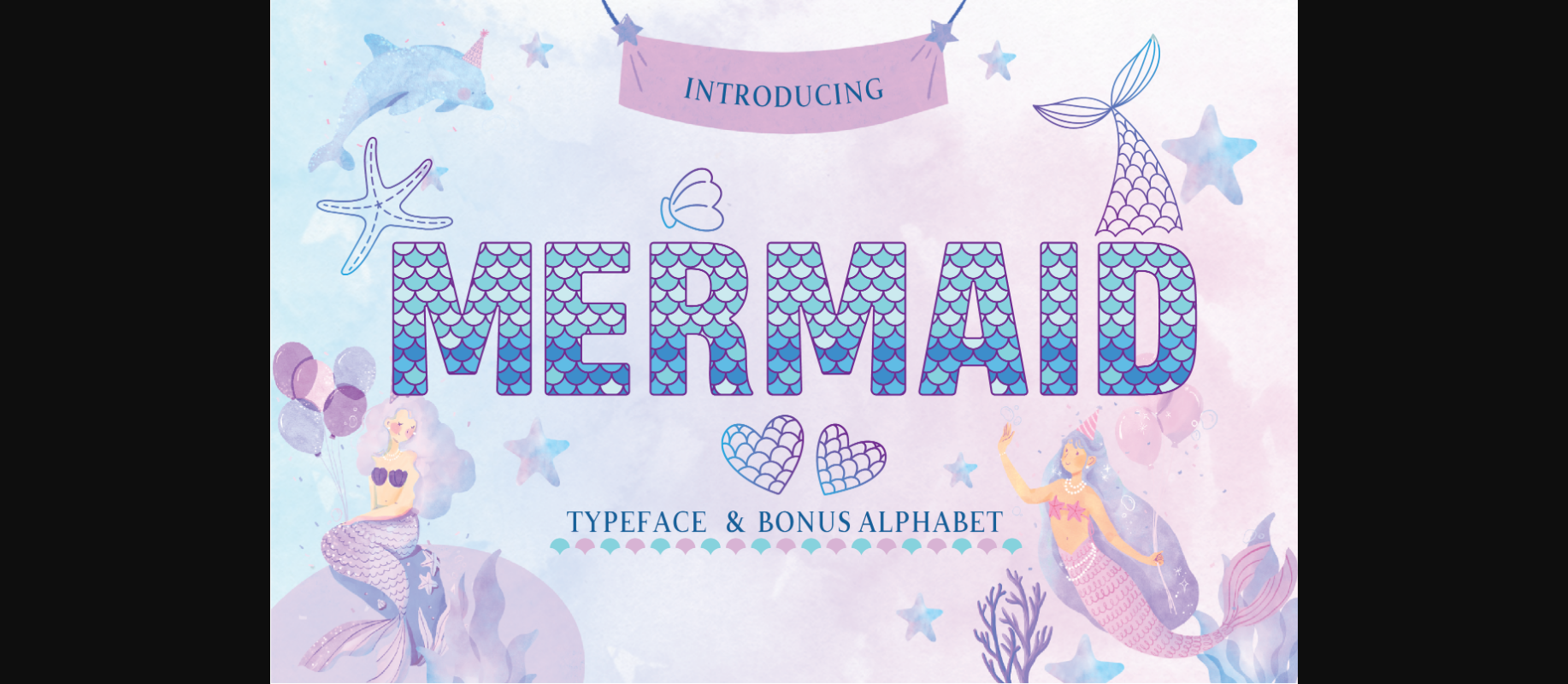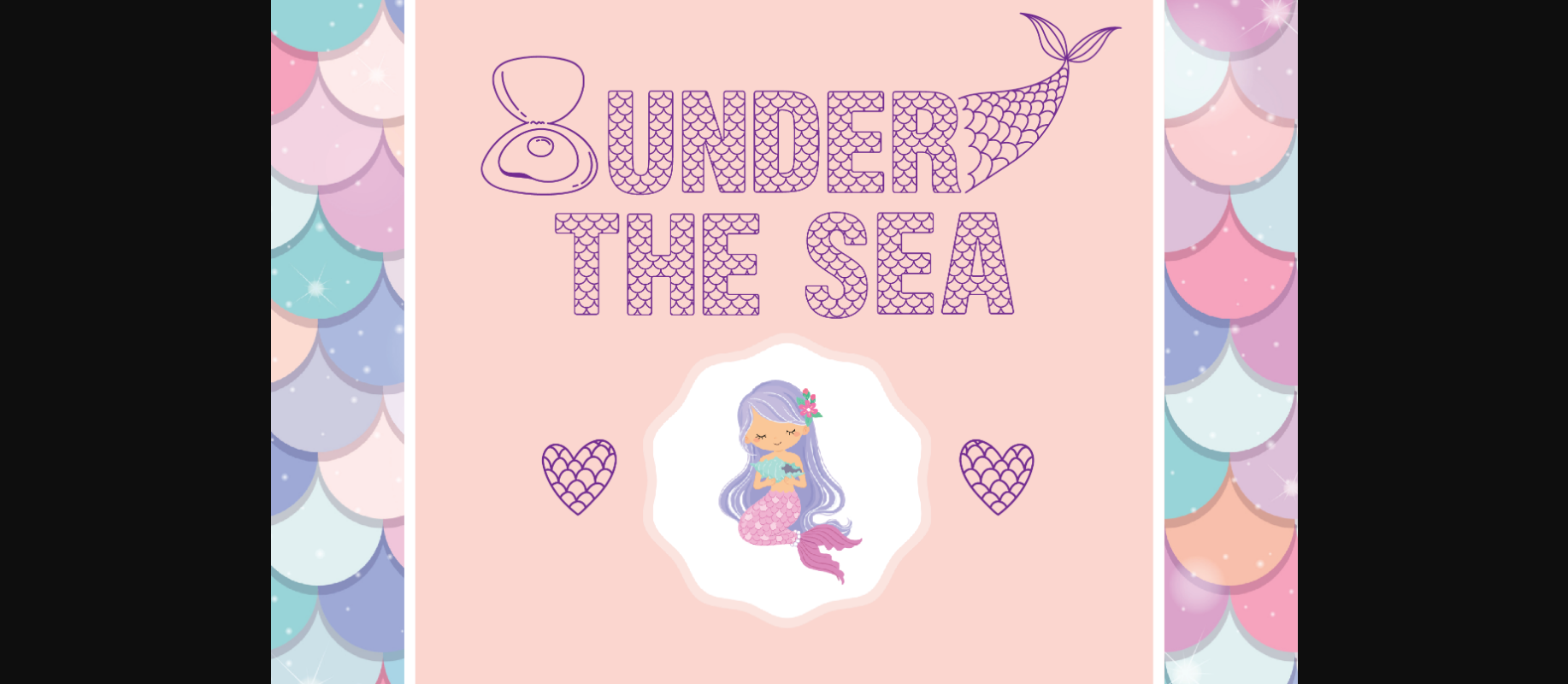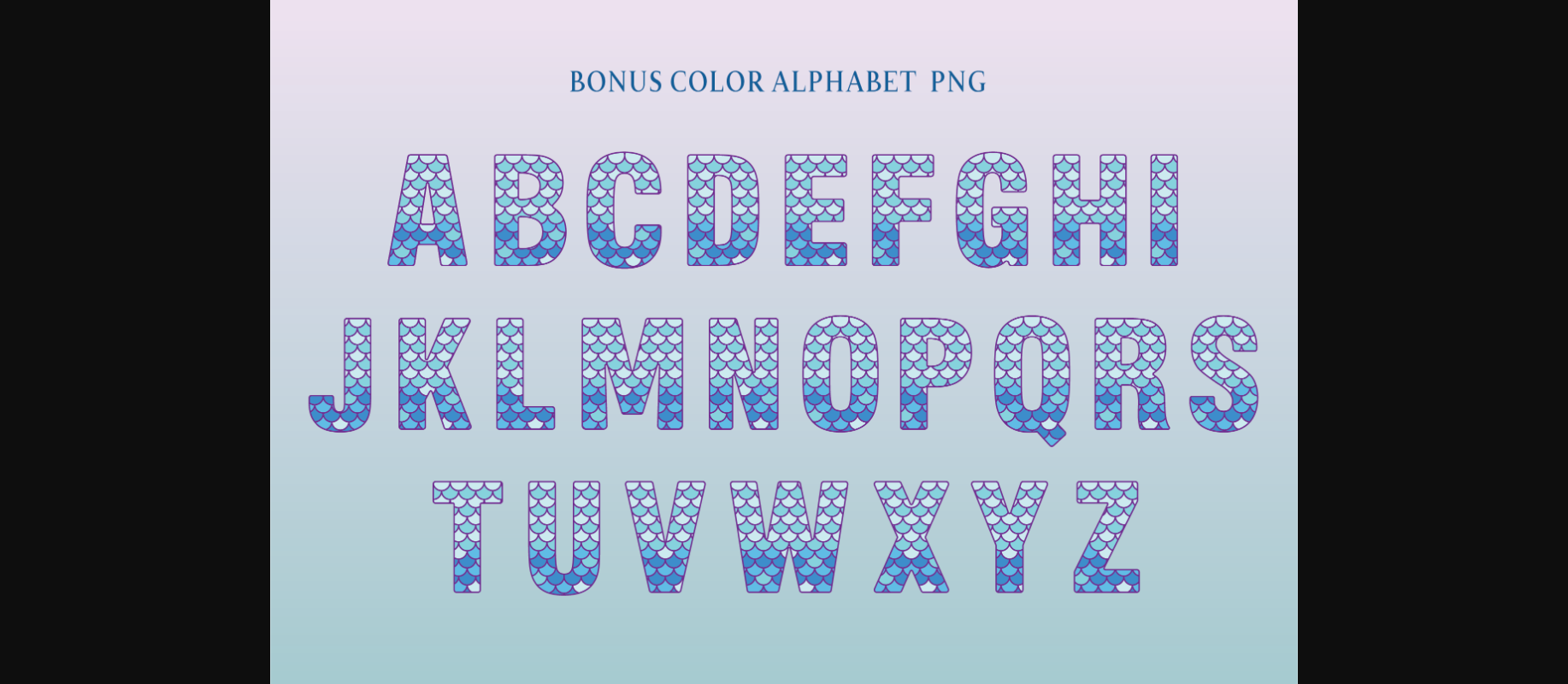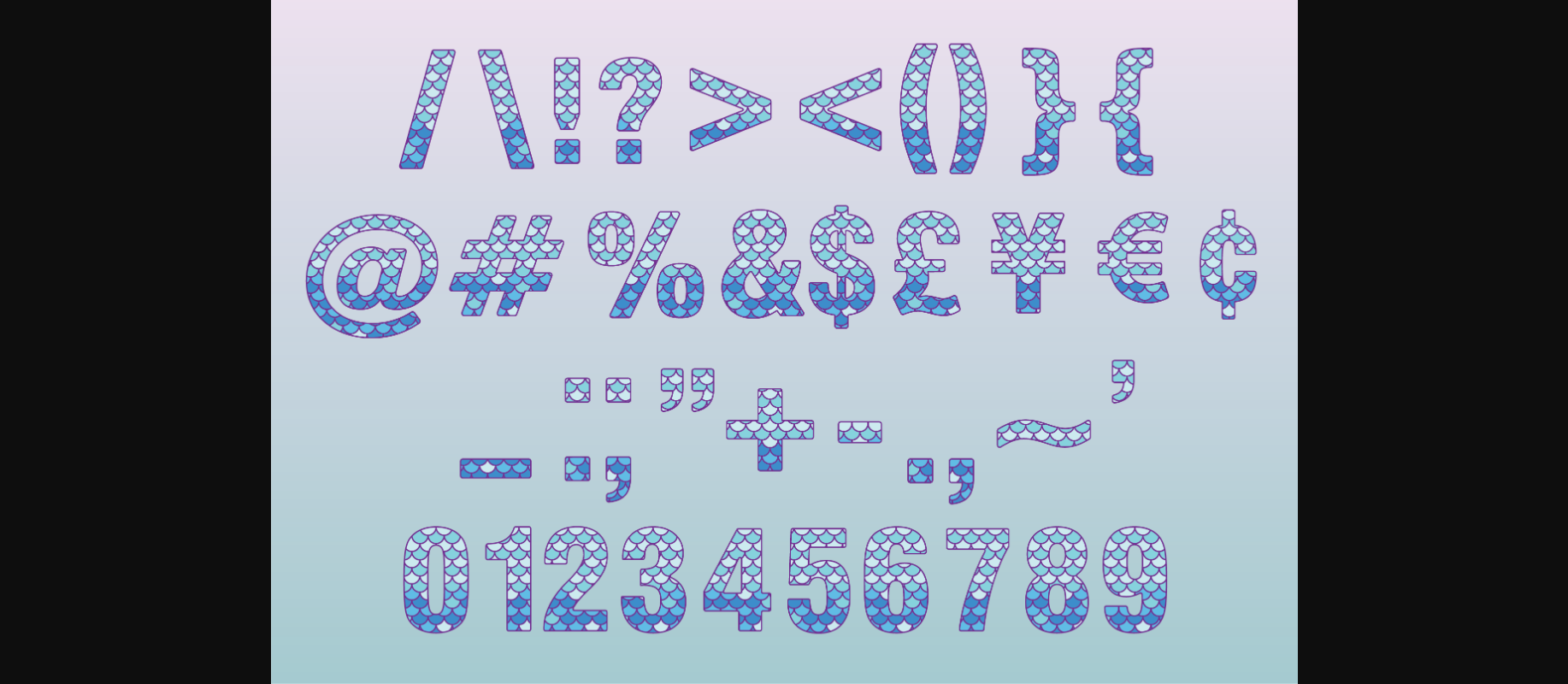
HomeDecorative FontsMermaid Font Decorative Fonts Mermaid Font FacebookXPinterestWhatsApp 1 of 7 ... Mermaid Font Poster 2... Mermaid Font Poster 3... Mermaid Font Poster 4... Mermaid Font Poster 5... Mermaid Font Poster 6... Mermaid Font Poster 7... About Mermaid Font Mermaid is a cute and unique decorative font. This font will be an incredible asset to your fonts’ library, as it has the potential to create any project. DOWNLOAD NOW People also explored South Roman Font Sanpedro Font Kingston Signature Font Le Amatcky Font Haveko Font Enchy Oaklash Font Silly Type Font Bummy Font 404 0 TagsMermaidMermaid Font Previous articleDog FontNext articlePaina Flower Monogram Font LEAVE A REPLY Cancel reply Comment: Please enter your comment! Name:* Please enter your name here Email:* You have entered an incorrect email address! Please enter your email address here Website: Save my name, email, and website in this browser for the next time I comment. Personal Use Free Crack Man Personal Use Free Read more about this font Cuttering Personal Use Free Read more about this font Motherblood Personal Use Free Read more about this font Boldace Personal Use Free Read more about this font BLOG Fonts That Capture the Spirit of New York City New York City is more than just a place—it’s an experience, a rhythm, a visual language... To increase your work productivity, choose the most readable fonts. Elegant Wedding Invitation Fonts – Handwritten & Script Fonts Modern Sans-Serif Fonts That Brands Love in 2025